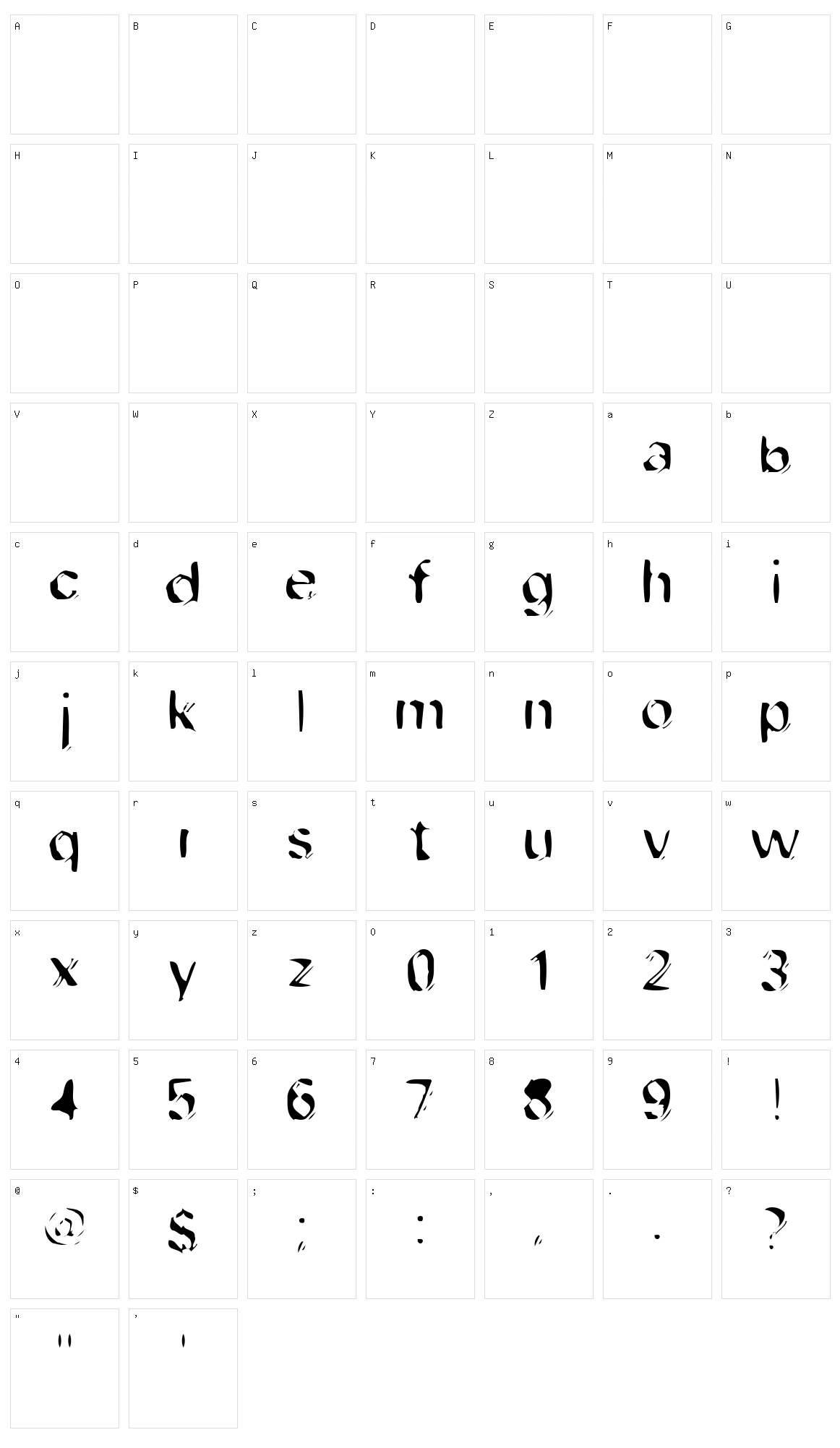
The free font Dob File Type is carefully designed by Xerotype, showcasing a thoughtful balance of creativity and usability and falls under the Distorted font style. When you download the ZIP file, it contains only 13.54 KB of font files, making it lightweight and quick to download. Please review the license details below to understand permitted usage and distribution rights. If license information is not available, we recommend using this font for personal projects only or contacting the author directly for commercial usage permissions.